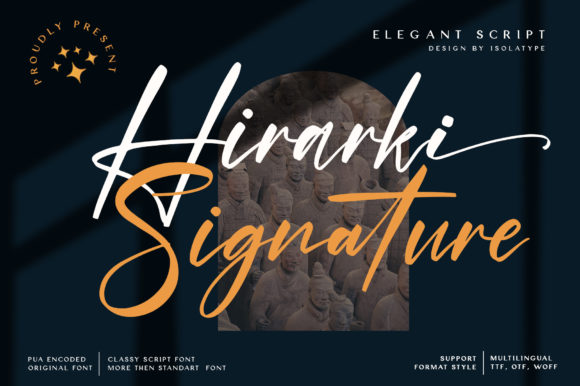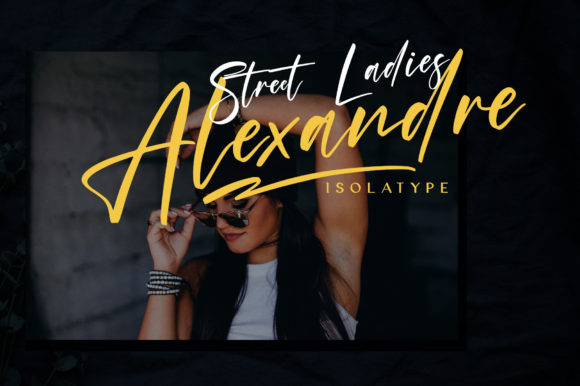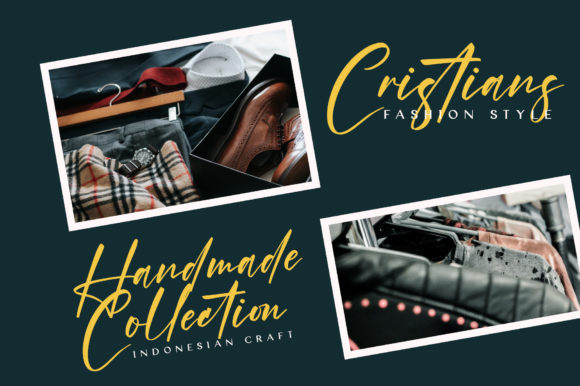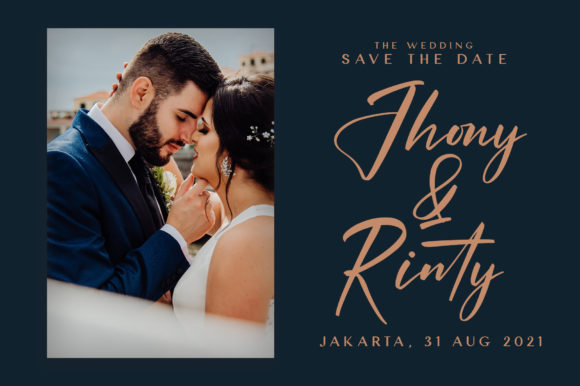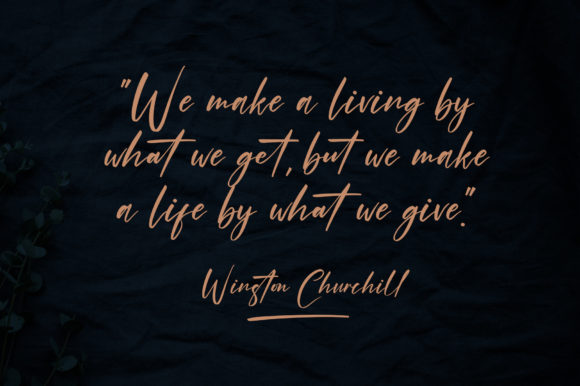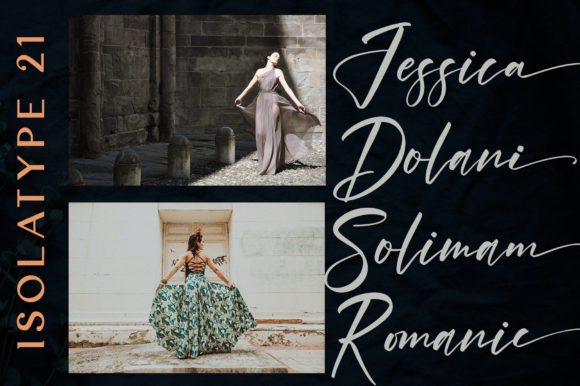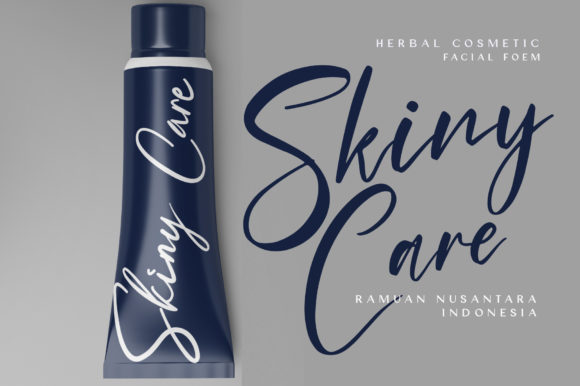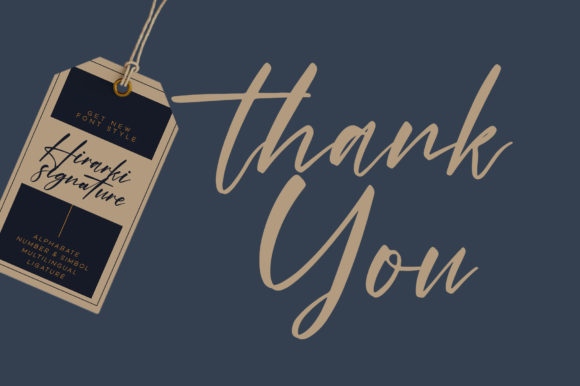
Hirarki Signature Font
About Hirarki Signature Font
Hirarki Signature is a thin lettered and graceful script font. Fall for its ravishing style and use it to create gorgeous designs. This font is PUA encoded which means you can access all of the glyphs and swashes with ease!